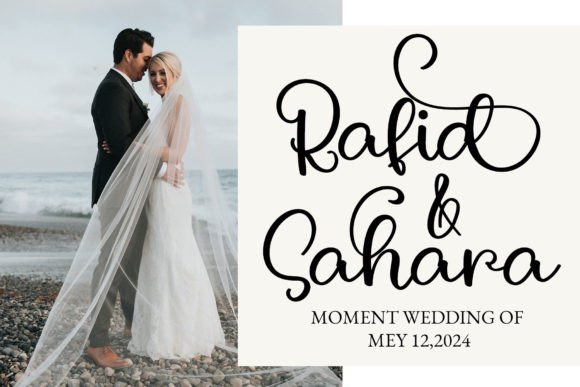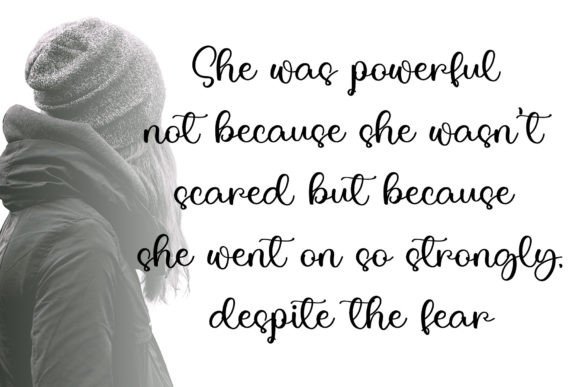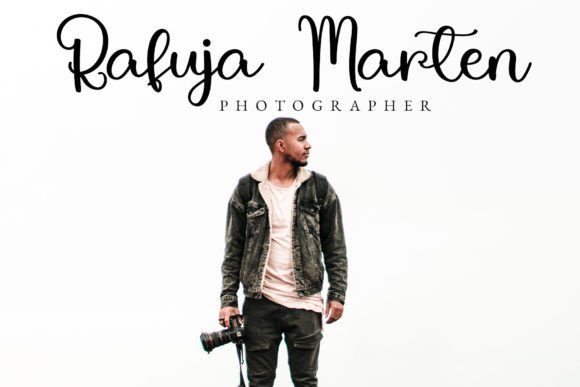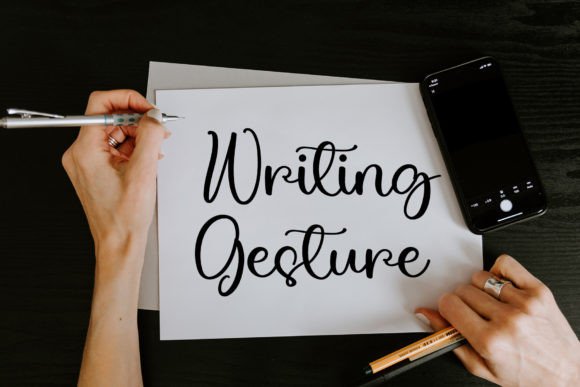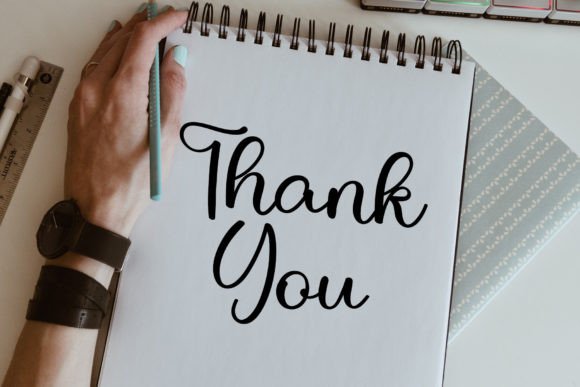
Introducing Behind Font: Elevate Your Designs with Elegance and Sophistication
Are you a designer, crafty DIY enthusiast, or social media influencer looking for the perfect font to add a touch of elegance to your creative projects? Look no further than Behind Font, a magical handwritten font designed to transform your ideas into stunning works of art. In this article, we’ll dive into the world of Behind Font, exploring its features, benefits, and uses, as well as provide tips and inspiration for incorporating it into your designs.
The Story Behind Behind Font
Behind Font is a carefully crafted handwritten font that exudes sophistication and refinement. Its creator’s passion for typography and design is evident in every delicate stroke and curve, making it an ideal choice for those seeking to add a touch of luxury to their designs. Whether you’re working on a branding project, social media graphics, or DIY crafts, Behind Font is sure to impress.
Key Features of Behind Font
- Handwritten Elegance: Behind Font boasts a beautiful, handwritten style that adds a personal touch to any design.
- Magical and Unique: Its distinctive character set and carefully crafted letterforms make it stand out from other fonts.
- Versatile: Suitable for a wide range of design projects, from Instagram graphics to calligraphy scripts and DIY crafts.
- Elegant and Refined: Perfect for designers and crafters seeking to add a touch of sophistication to their work.
Using Behind Font for Instagram and Social Media
In today’s visually-driven social media landscape, having a strong visual identity is crucial. Behind Font can help you elevate your Instagram game and make your feed stand out. Use it to create stunning graphics, quotes, and stories that showcase your personality and style. With Behind Font, you can:
- Create eye-catching Instagram stories and posts that grab attention.
- Design custom quotes and typography that resonate with your audience.
- Develop a consistent visual brand identity that sets you apart.
Behind Font for DIY Projects and Crafts
Crafty DIY enthusiasts will love Behind Font for its versatility and elegance. Use it to add a personal touch to:
- Handmade cards and invitations: Add a touch of sophistication to your paper crafts.
- DIY home decor: Create beautiful wall art, signs, and quotes that reflect your personal style.
- Custom gifts: Make your gifts extra special with personalized typography.
Tips for Getting the Most Out of Behind Font
To make the most of Behind Font, keep the following tips in mind:
- Experiment with colors and textures: Combine Behind Font with different colors, textures, and backgrounds to create unique designs.
- Mix and match with other fonts: Pair Behind Font with other fonts to create visually appealing typography.
- Pay attention to spacing and layout: Balance your text with generous spacing and a clear layout to ensure your design shines.
Behind Font is a game-changer for designers, crafters, and social media enthusiasts seeking to add a touch of elegance and sophistication to their creative projects. With its magical handwritten style, versatility, and ease of use, Behind Font is sure to become a favorite in your design toolkit. So why wait? Unlock the creative potential of Behind Font and transform your designs into stunning works of art!